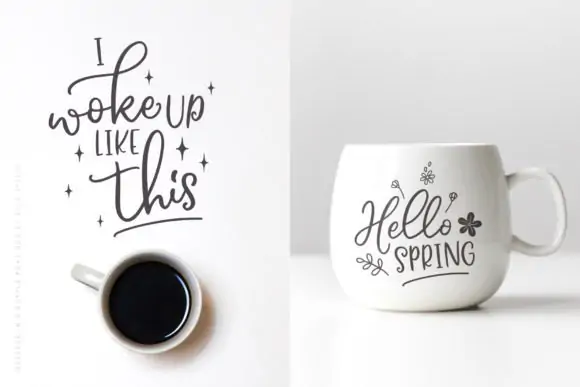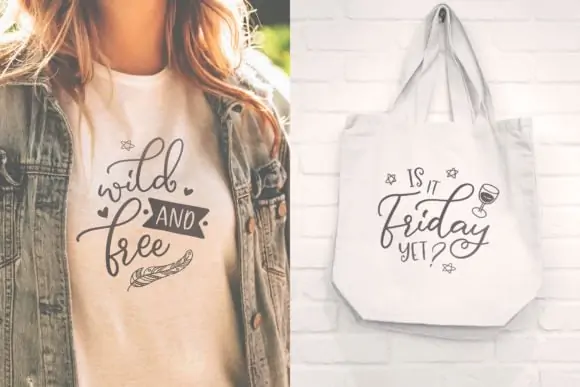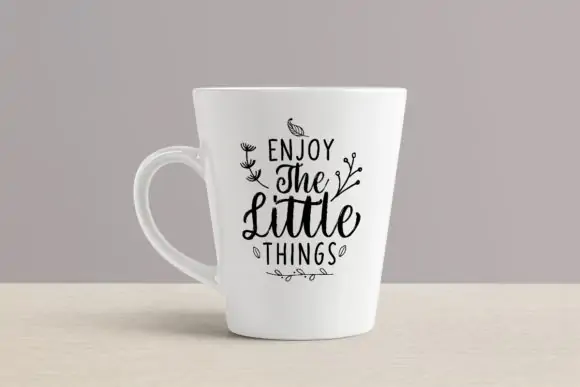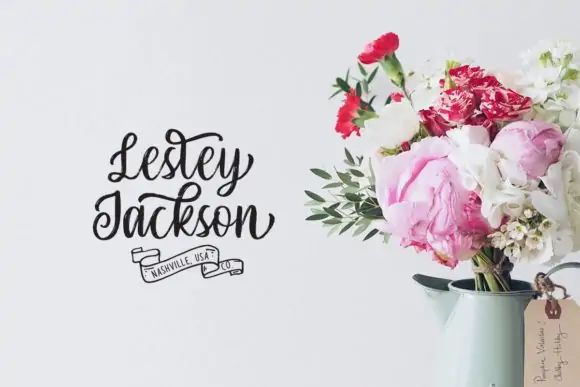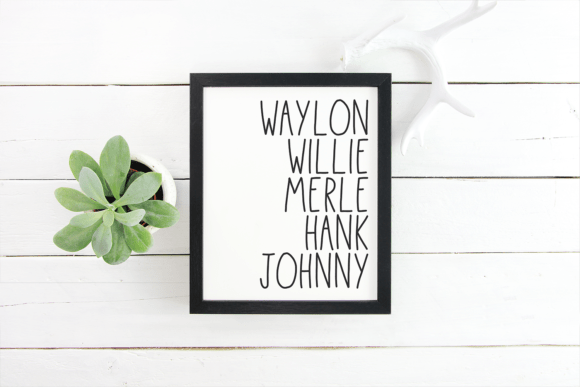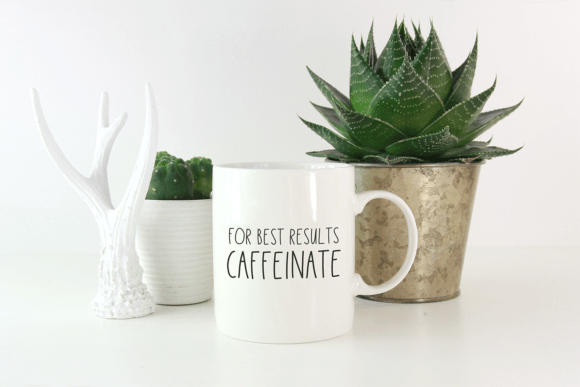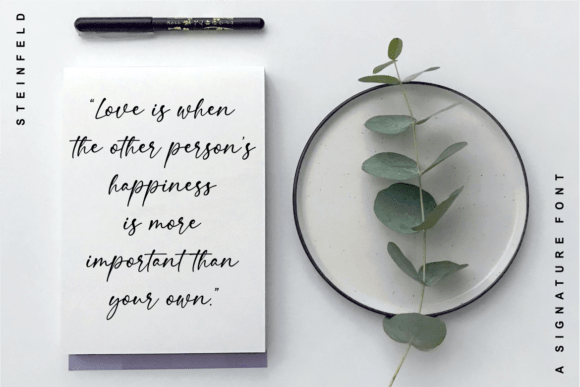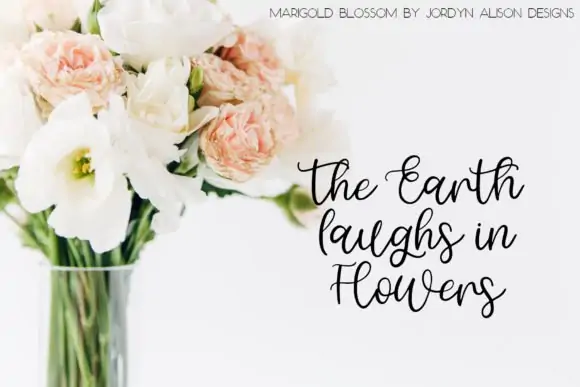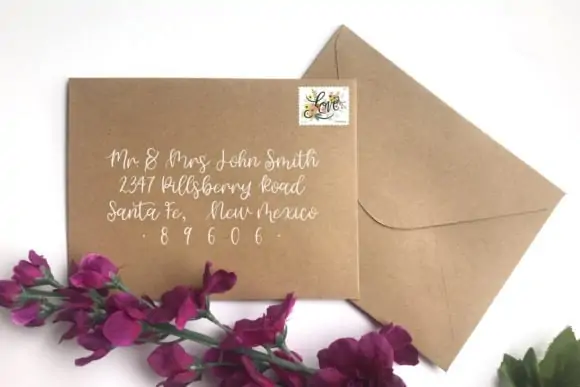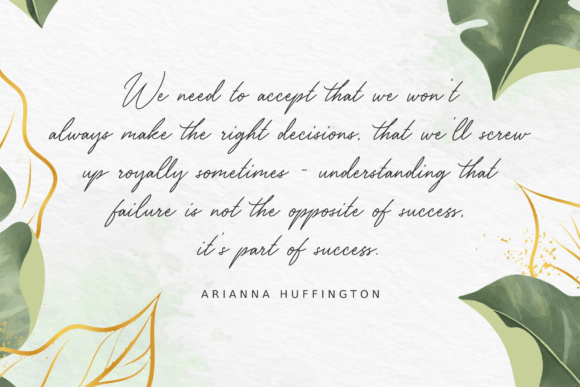
Are you looking for the best fonts to use in your farmhouse-themed projects?
I got you covered with my list of the best and popular farmhouse fonts that will bring your creative ideas to life.
Finding the right farmhouse font for a project is the first step towards deciding the look and feel you want to achieve, whether to make farmhouse-style signs or logo design and branding.
It’s tough to pick a favorite! Especially for an ardent font lover like me, every style has its unique charm – rustic, french country, and vintage.
Different design projects have different creative demands. Choosing the right font or font pairing from the script, thick or chunky, tall and skinny, sets the tone for your project.
Over the years, while creating hundreds of designs for my home and my digital product business, I have explored different types of farmhouse-style fonts, from traditional to modern.
Being a fixer-upper lover and a huge Joanna Gaines fan, and add to that admiration for all things Rae Dunn, yours truly has a bit of a farmhouse-style obsession.
This list draws from my own experience of creating farmhouse-style designs. I hope that this blog post helps you find the best farmhouse-style font for your project!
Best Farmhouse Fonts
Message in a Bottle Duo
The Message in a bottle font duo is one of my favorite fonts on this list! The duo includes a script and sans version and tons of cute floral, rainbow, and heart doodles.
The font has a charming and modern look that makes it the perfect choice for creating farmhouse-style designs.
It also includes swashes, alternates, and tails that add a feminine touch to your designs. Make invitations, mugs, signs, greeting cards that pay homage to the modern farmhouse mood.
Olive Family
The Olive family of fonts is a farmhouse lover’s dream come true. If you could only make one purchase, this font has it all.
The family includes six font styles in one pack – script, sans, hand, brush, slab, and signature. Mixing and matching the variety of fonts to create rustic designs is so much fun!
The font is perfect for making country farmhouse-style signs for home decor projects.
What’s more, the font also comes with a set of cute nature doodles – leaves, wreaths, banners, and farm animals. With more than 100 handmade illustrations to choose from, you can use the Olive family fonts for making wedding and bridal shower invitations, mugs, pillows, shirts.
The pack also comes with premade logos, making it essential for all your farmhouse-style branding needs.
Sassafras
Sassafras is a tall and skinny farmhouse font. Its wobbly characters add a touch of playfulness to the rustic font.
Perfect to create farmhouse-themed designs for wood signs, pillows, shirts, tote bags, and mugs. Also great for personalizing your designs with a name or family name.
Farmhouse Script Fonts
Steinfeld
Steinfeld is an elegant calligraphy font whose timeless quality adds charm to your design project. Its classy signature style look makes it the best farmhouse-style font to use for weddings and holidays.
Combine the font with watercolor eucalyptus greenery to create elegant wedding invitations. Or use it to design the logo and branding assets for promoting your business online.
The font comes with tails that make it a popular choice for highlighting a single word in a farmhouse-style design like – gather, home, or a family name sign.
Marigold Blossom
Marigold Blossom is a beautiful hand-lettered cursive font that is both classy and modern. This calligraphy font is perfect for designing quotes and creating farmhouse-style designs.
The font’s playful and bouncy feel, coupled with tons of stylistic alternates, makes it a fantastic choice to make porch signs, pillows, mugs, and tote bags.
Combine the font with leaves, wreaths, or watercolor graphics, to create beautiful wall art and signs.
Sallythone
Sallythone is an elegant handwriting font with a thin and smooth look. The script font is ideal for creating logo and branding assets as it comes with a set of beautiful stylistic alternates and ligatures.
You can also use the font to design quotes that you can share on social media. Add your own unique touch to the font by adding botanical line art elements and watercolor greenery. Perfect for writing quotes and names for save-the-date cards, bridal shower, and birthday party invitations.
Ink Tonic
Ink Tonic is a beautiful brush script font. The font comes in a regular version and a version with fluid and translucent texture. These unique features give the font an elegant and modern look.
Use the font for creating branded content for DIY crafting, fashion, travel, and lifestyle bloggers and businesses. The font looks equally cute on greeting cards and for posting quotes on Instagram.
Rustic Farmhouse Fonts
Farmhouse Country
Farmhouse Country is a combination of rustic script and sans fonts. Its shabby chic look is perfect for giving your design projects a hand-lettered feel. The font’s textured look and ligatures create a nostalgic vintage-inspired look.
The sans font in its all caps version and numbers are perfect to create farmhouse-style signs for home decor to decorate your porch, living room, or bedroom.
Use the font to add a touch of charming country cottage vibes to your online shop, Instagram account, or blog. Great for writing quotes juxtaposed with photography.
Spring Market
Spring Market is a rustic handwriting serif font with textured edges evoking a vintage farmhouse-style look. The shabby yet chic style of the font makes it a perfect choice for making farmhouse-style home decor signs, porch signs, pillows, tote bags, and doormats.
I love using this font and have made funny and inspirational quotes for home and work (some of them are available as free printables on the blog).
The earthy look of the font adds charm to design projects. Combine the font with simple elements like wreaths and leaves to make logos and branding assets.
Magnolia Tree
Magnolia Tree is a beautiful hand-lettered serif style font duo. It includes a regular version and an inline version.
I have used this font in creating designs for many of my signs and wall art projects. Thousands of our blog readers have downloaded home decor designs made from this font and decorated their homes.
The font’s textured edges make it ideal for creating rustic and charming cottage farmhouse-style designs. It is also a fantastic font to work with to create chalkboard-style signs and banners.
Modern Farmhouse Fonts
Easy Breezy
Easy Breezy is a modern skinny farmhouse font. It comes in a sans and serif version with cute summer and nature doodles. The font’s tall and skinny look lends to creating a playful feel to your designs.
Combining the font with the doodles and creating farmhouse-style designs for clothing, mugs, tote bags, and tumblers is so much fun.
Wildstripe
Wildstripe is a modern handwritten farmhouse font. The font’s lettering is reminiscent of writing with a sketch pen. Its playful feel makes it a fantastic choice to write inspirational quotes.
It comes with a set of cute nature doodles, when combined with the font, creates elegant yet fun designs.
Coquillette
Coquillette is a playful handwritten font that comes with cute alternates, swashes, and arrows. Its playful and bouncy look is perfect for making boho-themed branding and apparel designs.
The font looks fabulous on greeting cards and wedding invitations.
Farmhouse Font Combinations
Winter Flowers
Winter Flowers is a versatile font duo that comes in a script and sans version. The cursive version is elegant and playful. The font is sure to add a feminine touch to your designs.
I have used this font to design quotes and love the way they turned out. Looks fantastic on invitations, greeting cards, shirts, and drinkware.
Hello Blushberry Duo
The Hello Blushberry font pair is a popular choice for making playful farmhouse-style designs.
The script and sans versions complement each other beautifully to create one-of-a-kind designs. It comes with a set of elegant swashes that add to the uniqueness of the font.
Winter Violet
Winter Violet is a modern and elegant handwriting font that adds a warm and charming tone to your designs. It’s a font combination with a sans and script version that combine beautifully to create farmhouse-style designs.
Its bouncy and playful look makes it the best choice to design quotes for farmhouse-style signs for the home and boho-inspired clothing. The font pairing also works well for creating brand identity online.
Farmhouse Fonts with Tails
Hello Honey
Hello honey is a cute hand-lettered cursive font that is perfect for making farmhouse-style designs. Its heart-shaped swashes make for an adorable addition to the already pretty font.
Use the font to create an elegant and modern logo and branding assets. It also looks amazing on farmhouse-style wood signs.
Bohema Spirit
The Bohema spirit script font is a beautiful boho-inspired farmhouse-style font. It’s bold and unique, with arrows and feathers as tails. It also includes celestial and floral elements. What’s more, it also comes with a set of beautiful boho illustrations.
The font is a popular choice among designers and is sure to add a special touch to your designs.
Wishyou
Wishyou is an elegant script font with beautiful swashes and tails. The fonts varying thickness lends to creating a warm and earthy look. The font includes tons of botanical elements like leaves, wreaths, and frames.
It evokes a vintage farmhouse-style charm, making it perfect for creating logos, invitations, and wedding signs.
Lulu-Lala
Lulu-Lala is a stylish handwritten font that comes with an amazing set of cute tails. It’s perfect to create the popular design style that uses knock-out lettering on shirts.
It’s a cute font for making fun farmhouse-style signs and home decor items.